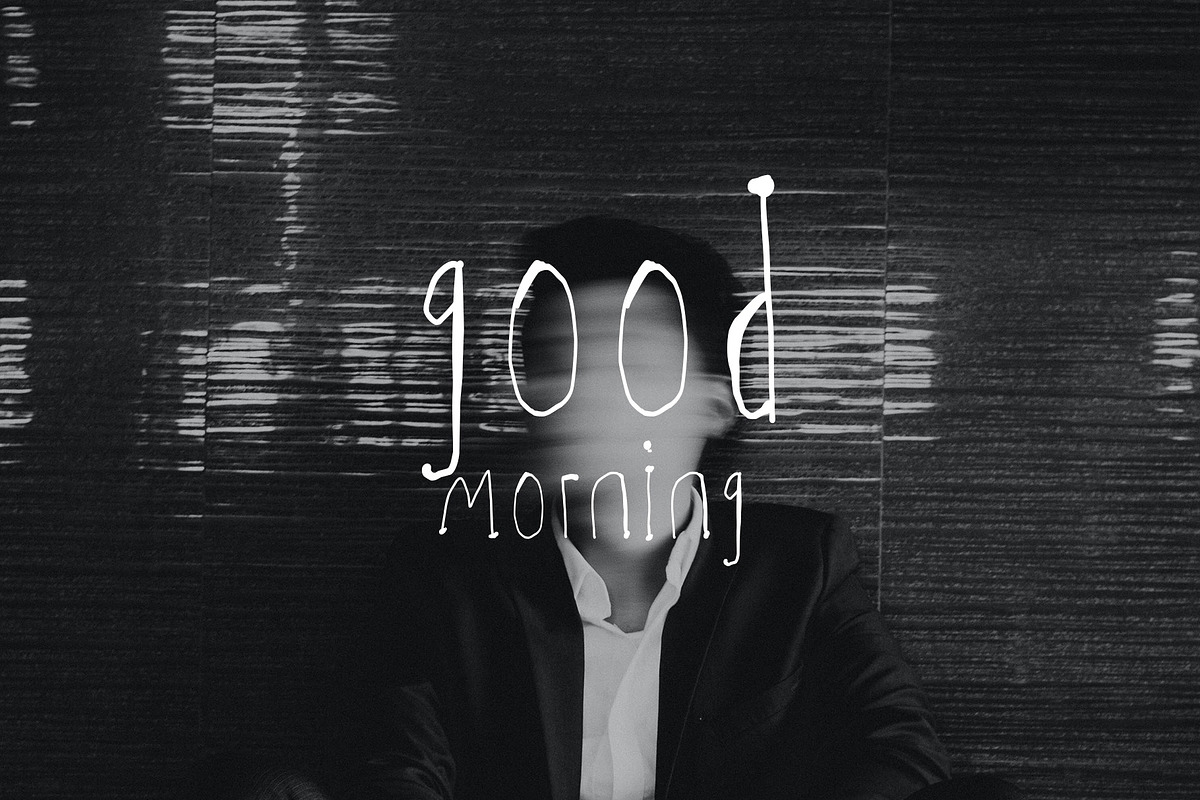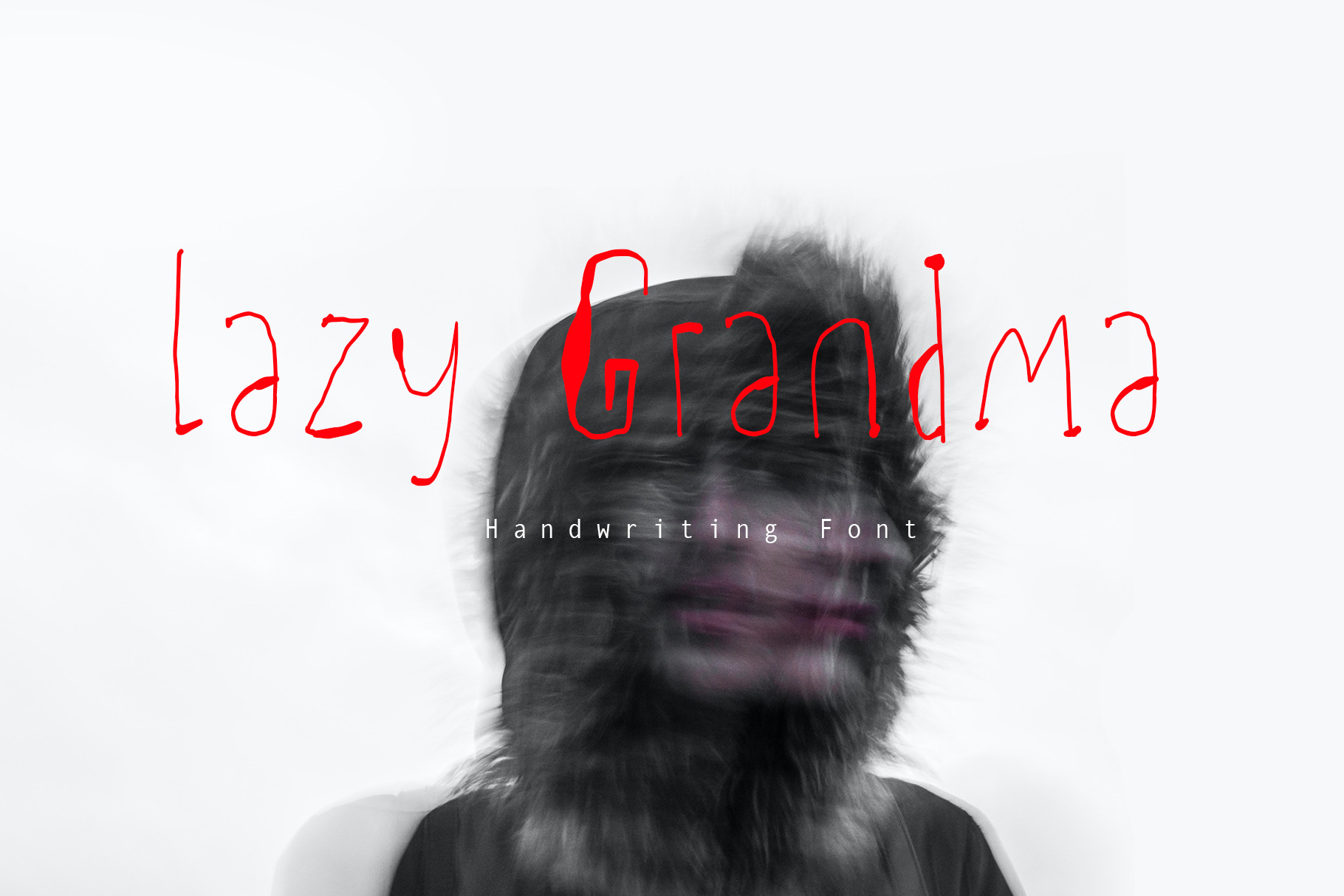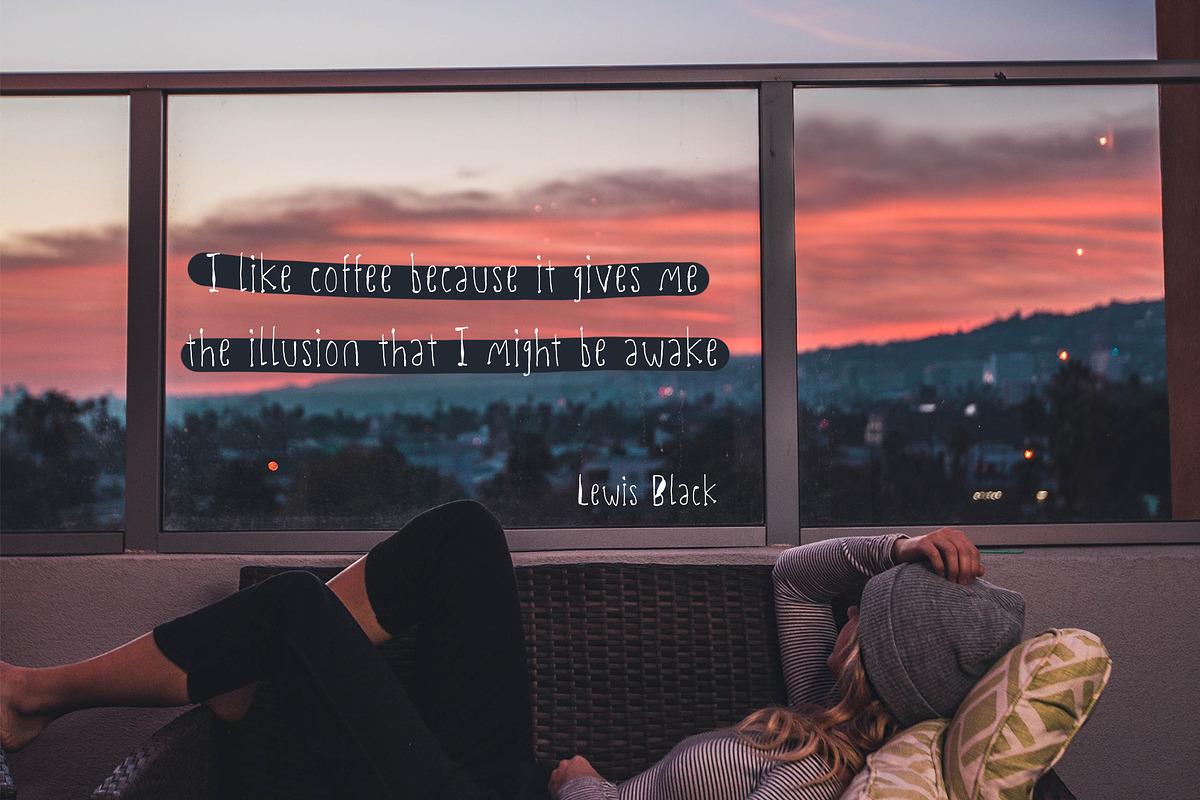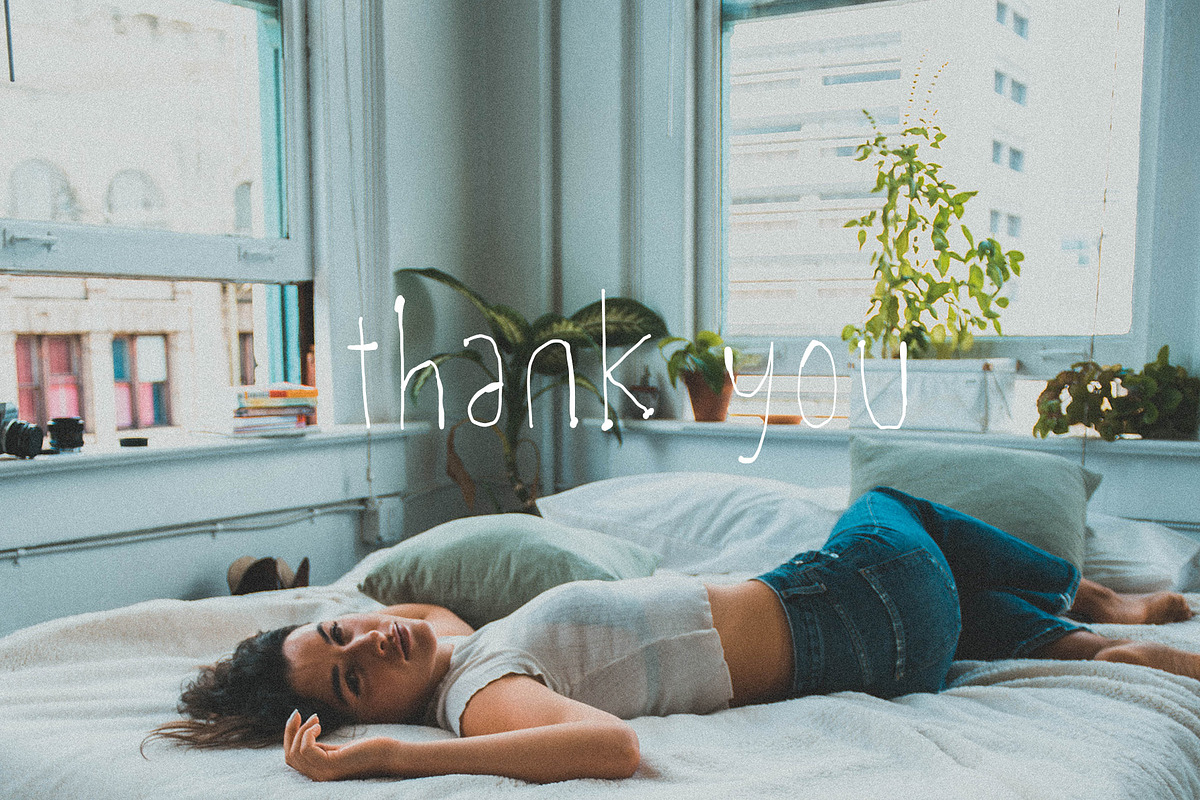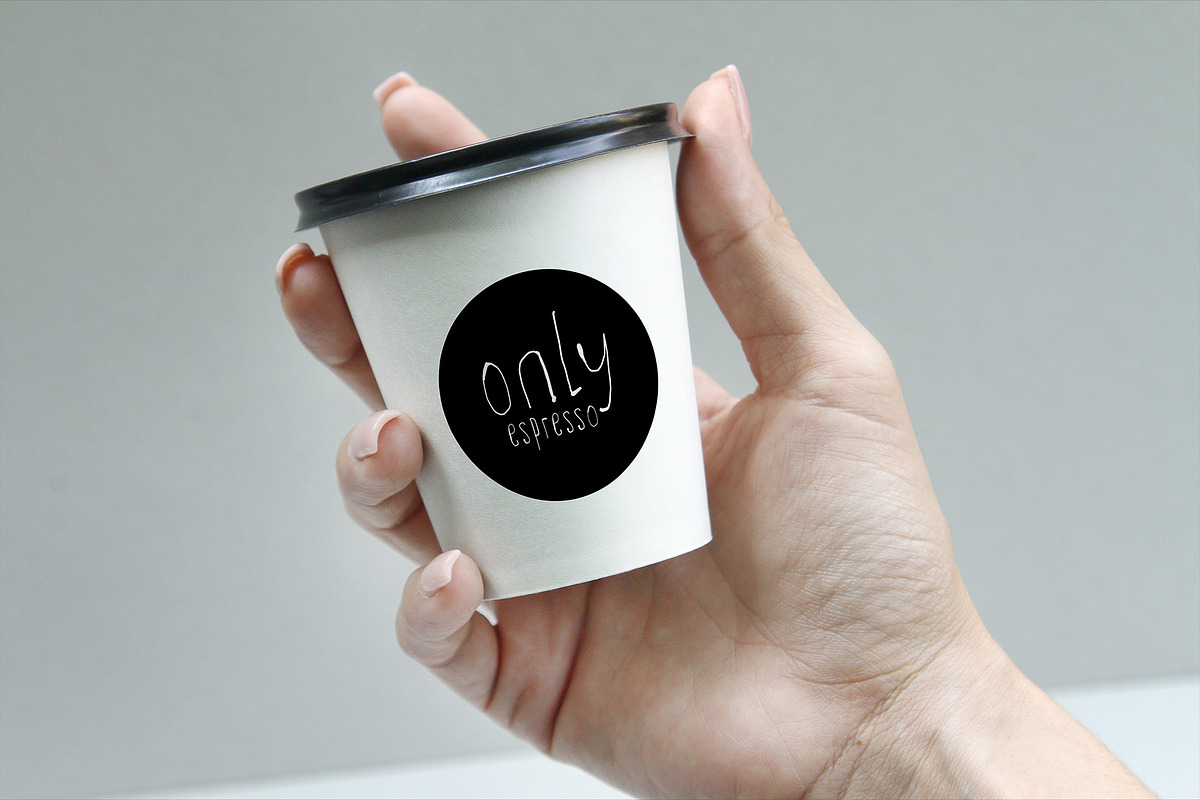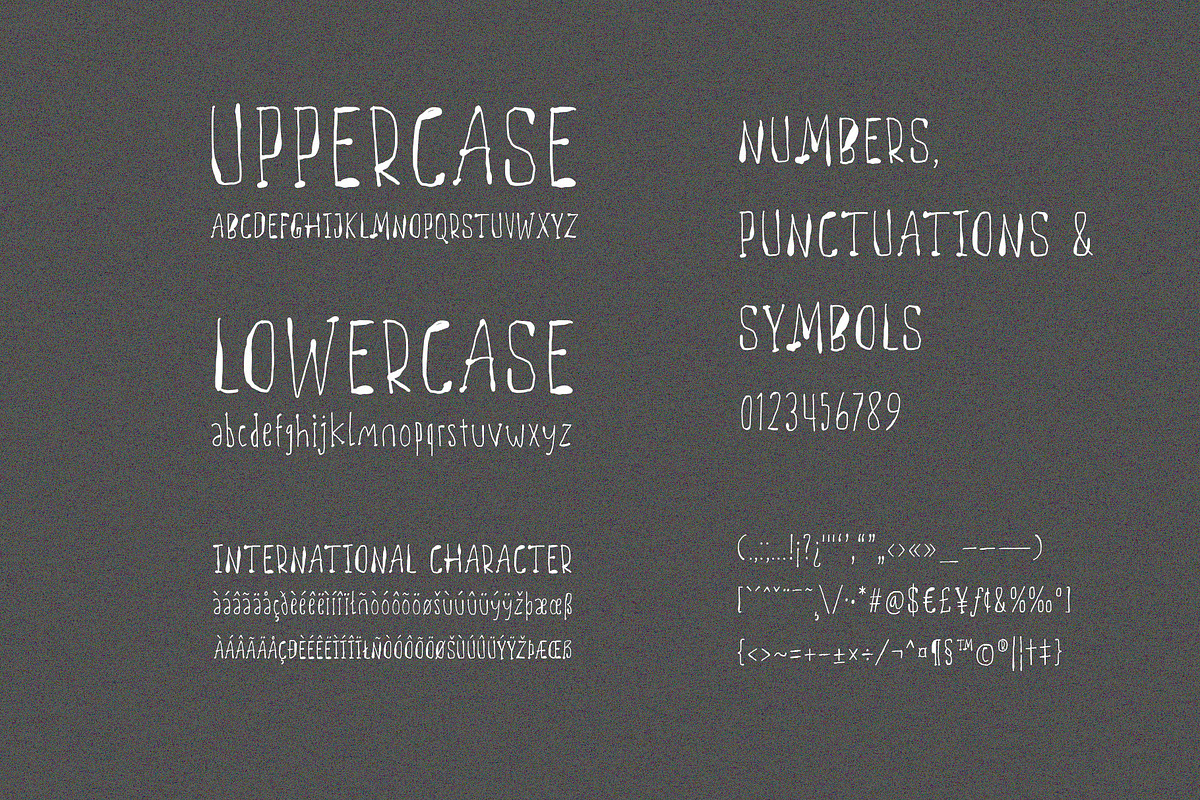
Lazy Grandma a Handwritten Font
Lazy Grandma is a unique handwriting font with a distinctive relaxed touch. The font brings a character that appears calm and serene, as if written with a laid-back attitude, giving a charming and different impression to your designs.
The history behind the creation of the Lazy Grandma font begins with our desire to present a font that reflects a relaxed atmosphere and exudes warmth. We were inspired by the laid-back moments spent with our grandmothers, where they wrote words calmly and conveyed messages with a gentle demeanor.
With Lazy Grandma each letter and character is designed to display a casual and relaxed hand stroke. Slightly slanted lines and natural curves create the authentic impression of a lovingly handwritten note.
Lazy Grandma is a font that will bring a warm touch to your designs. It is perfect for projects that aim to convey messages full of tenderness, such as greeting cards, invitations, or designs that want to evoke an aura of intimacy and comfort.
Let the Lazy Grandma font infuse your designs with gentleness and a sense of relaxation. The font's uniqueness will add a personal touch to every design you create, bringing back fond memories of laid-back and comforting moments shared with a beloved grandmother.